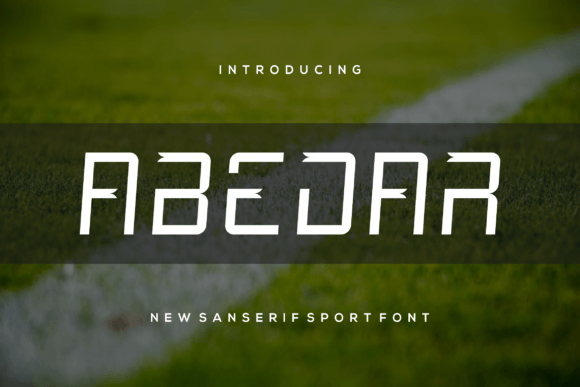
Introduction to Abedar Font
Abedar Font is a modern display font.
This creative font is suitable for any branding project like logo, t-shirt printing, esports, and many more Outstanding in a wide range of contexts.